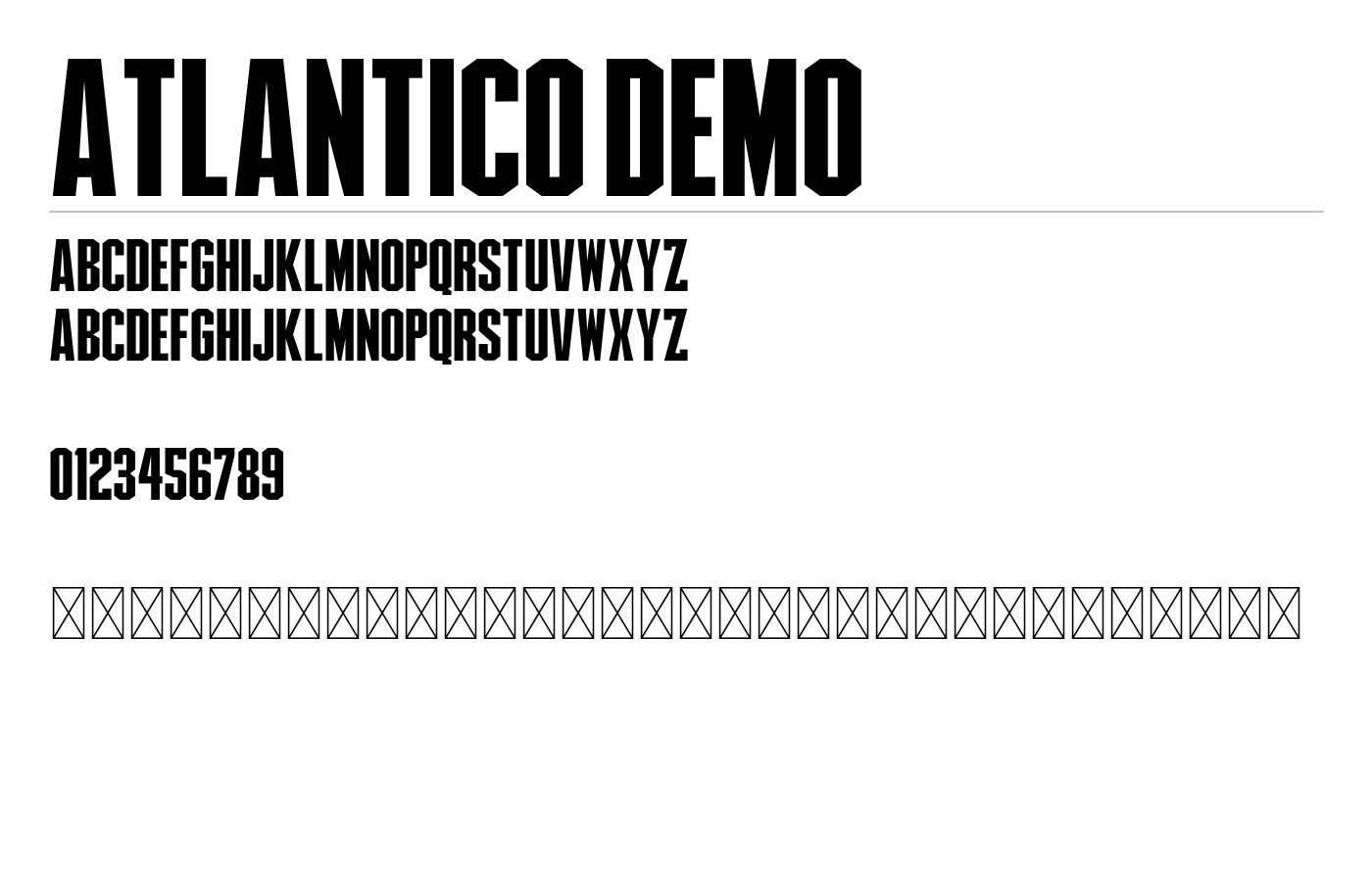
Atlantico Demo is a bold, condensed sans serif font with a strong, geometric style that commands attention. Its tall, narrow letterforms and sharp edges create a modern and striking look, making it ideal for impactful headlines and branding that aims to convey confidence and strength. This font works best in logos, posters, and editorial designs where a powerful and contemporary impression is desired.
Atlantico Demo Font
About Atlantico Demo Font